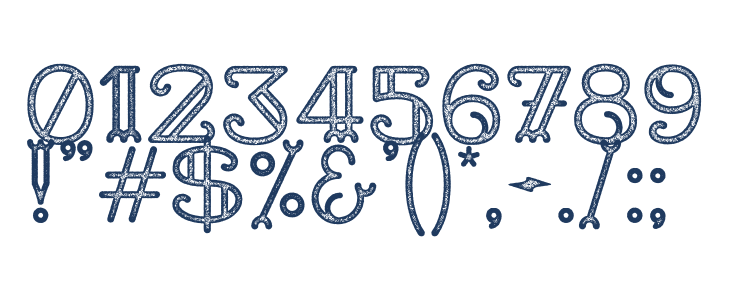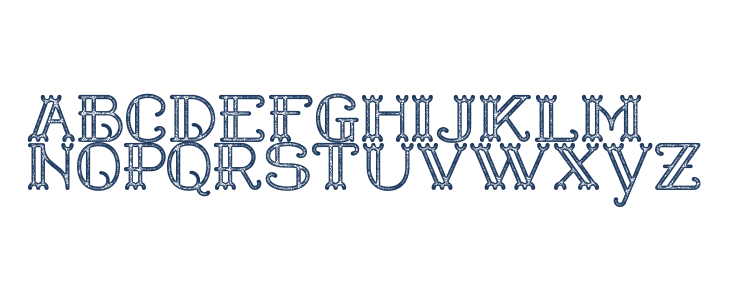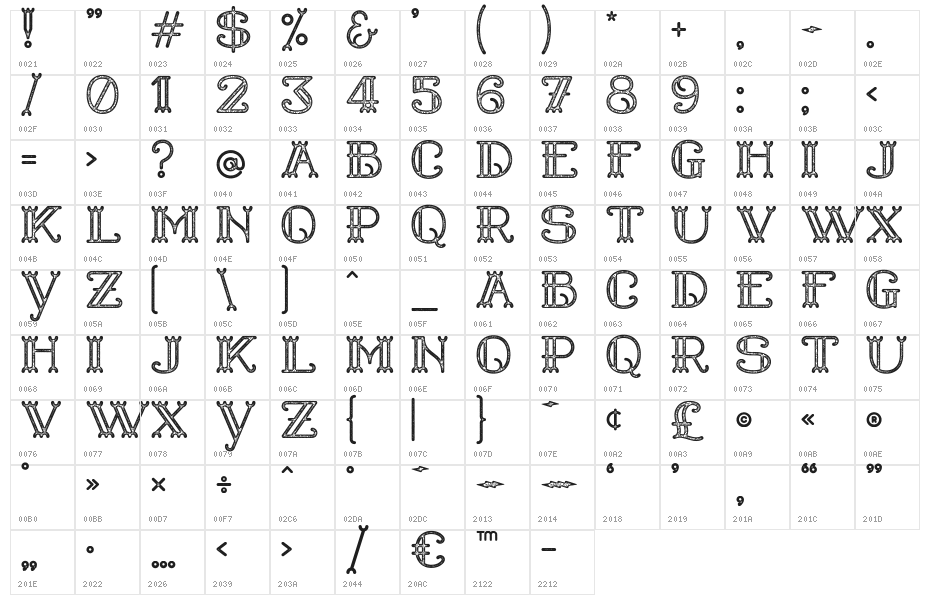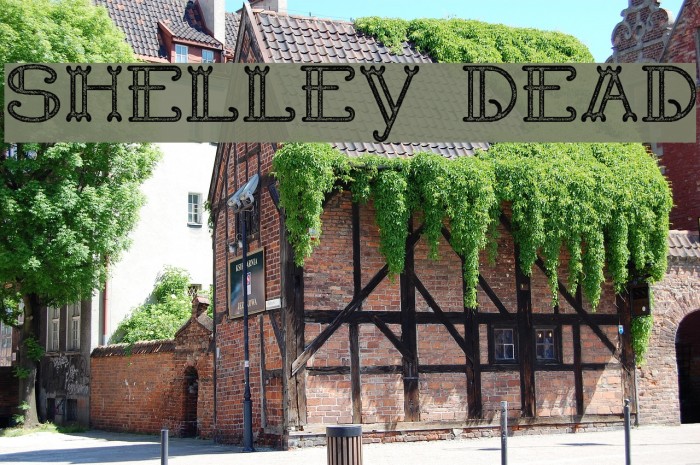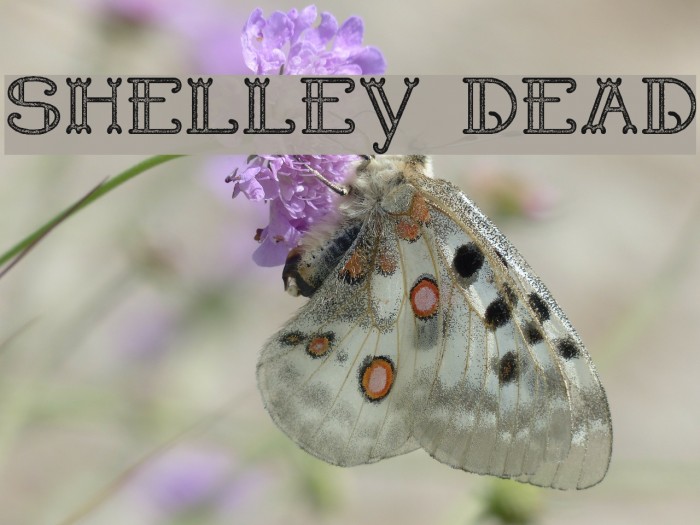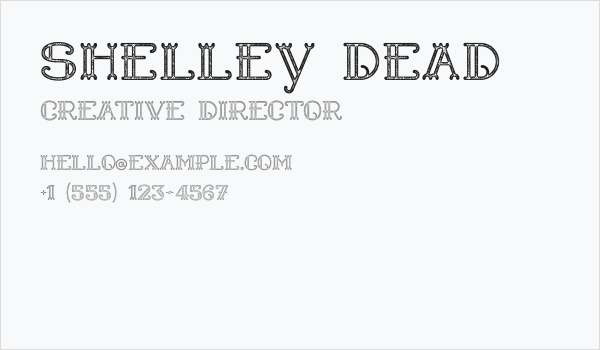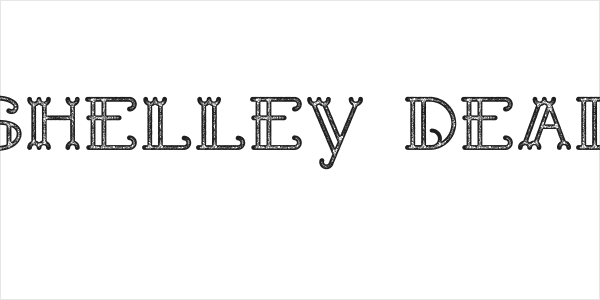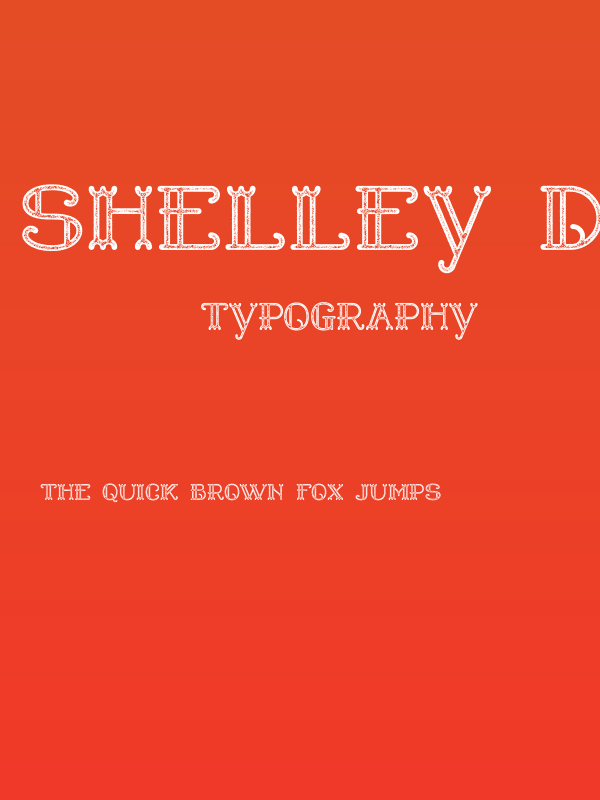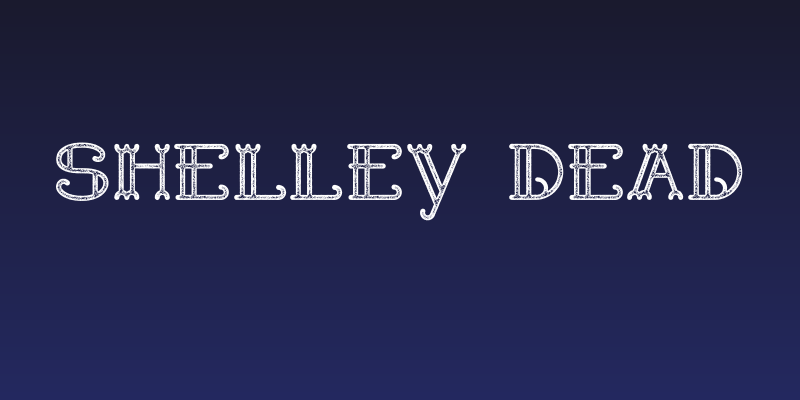
Shelley Dead Font
Shelley Dead Description
This font features a decorative and ornate style with intricate details on each character. The letters are embellished with small, pointed serifs and have a textured, almost engraved appearance. The design includes both uppercase and lowercase letters, as well as numbers and a variety of special characters. The overall aesthetic is reminiscent of vintage or Victorian-era typography, making it suitable for projects that require a touch of elegance and sophistication. The characters are evenly spaced, and the font maintains a consistent weight throughout, providing a balanced and harmonious look.
| Proposed Projects | Ideal for wedding invitations, vintage-themed posters, book covers, and branding that requires a classic and elegant touch. |